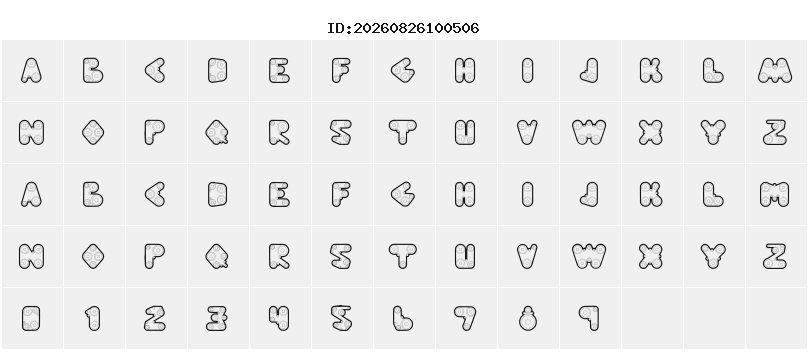
• Font Name: WebPressBold
About WebPressBold.ttf
WebPressBold.ttf is a modern, elegant sans-serif font designed for ultimate readability and visual harmony. Perfect for branding, headlines, web design, and print materials.